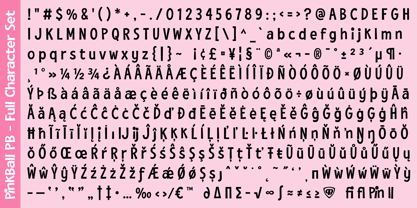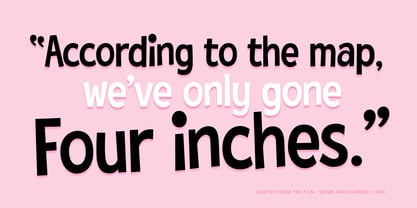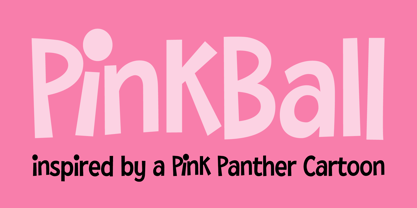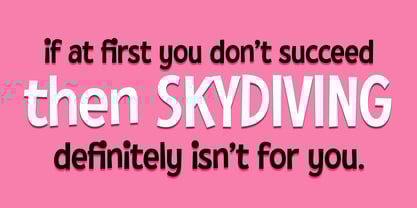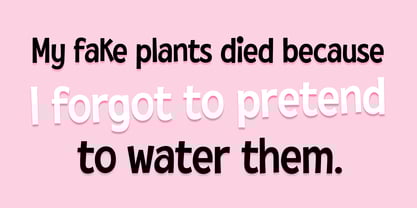
Pink Ball PB
by Pink Broccoli
The Pink Ball PB Font Family was designed by Brian J. Bonislawsky, Phil Bracco and published by Pink Broccoli. Pink Ball PB contains 1 styles. More about this family
PinkBall PB bounces onto the scene with the playful swagger of classic cartoon title lettering. Inspired by the title card from the 1972 Pink Panther episode “Pink 8 Ball,” this cheerful sans brings a clean shape, a little bounce, and a whole lot of personality to the page. The letters feel friendly, animated, and slightly mischievous — the kind of type that practically smiles while it works. PinkBall PB is perfect for children’s books, playful branding, toy packaging, animation projects, and any design that benefits from a little cartoon charm and carefree energy.
Designers: Brian J. Bonislawsky, Phil Bracco
Foundry: Pink Broccoli